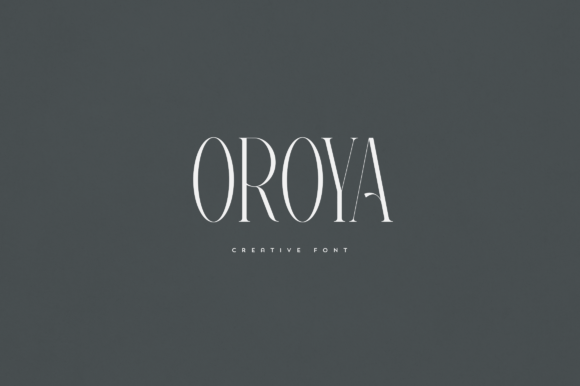
Prepare to be captivated by Oroya, an exquisite serif font that will unleash your creativity and transform your designs into masterpieces.
With Oroya, the art of typography becomes a symphony of elegance and distinction. Its carefully crafted curves and graceful serifs will effortlessly elevate every element of your visual communication, from captivating logos to stunning headlines that command attention.
Indulge in the versatility of Oroya, a font that seamlessly adapts to a myriad of design endeavors. Whether you're crafting eye-catching home-ware designs or creating unforgettable product packaging, Oroya will lend its timeless charm to every project. The world of branding will come alive as Oroya weaves its magic, leaving an indelible mark on every touchpoint.
Step into the realm of sophistication with Oroya. Its allure is undeniable, beckoning you to create magazine headers that radiate with brilliance. Let your words dance across the page, adorned with Oroya's enchanting presence.
But Oroya's versatility knows no bounds. Unleash your imagination and explore its boundless possibilities. Use it as a stylish overlay, transforming ordinary images into captivating works of art. The possibilities are endless, bound only by the limits of your creativity.
Join the creative revolution with Oroya, the font that will ignite your imagination and redefine your design aesthetic. Experience the allure of elegance and the power of versatility. Let Oroya be your guide as you embark on a journey of visual excellence.